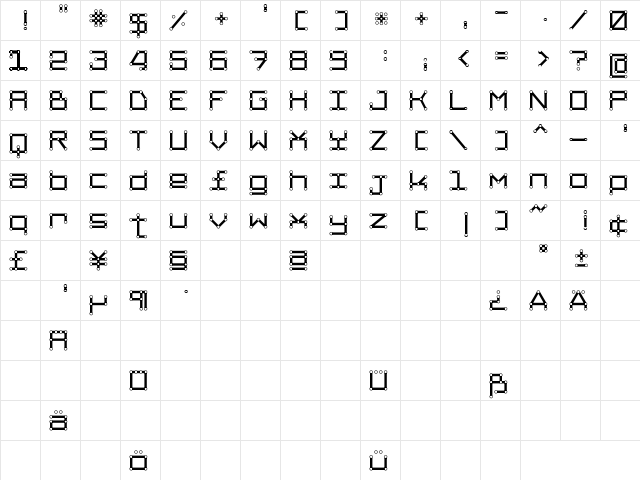
TPF Abbetor Regular
Design Context for TPF Abbetor Typeface
TPF Abbetor is a composed and adaptable typeface that performs quietly and consistently across a wide range of design contexts.